Script fonts combine the elegance of classical calligraphy and handwriting. Script fonts Suitable for Logo, badges, greeting cards, quotes, posters, branding, name card, stationary, design title, art quote, typography, art, modern envelope lettering or book design, happening style like hand-drawn design or watercolor design theme, or any purpose to make our art/design project look pretty and trendy. Before designing or implementing any informational content, you must first choose your font. If you are looking for a more natural feel with casual touch, a good script font is your choice. Here are a few famous examples to get you started.
Moscato Script
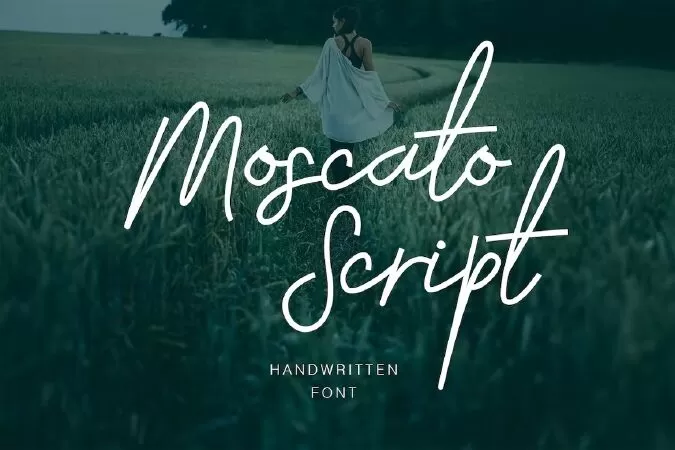
ntroducing Moscato - A dapper handwritten font with a personal touch. Moscato is perfect for many different project ex: quotes, blog header, poster, wedding, branding, logo, fashion, apparel, letter, invitation, stationery, etc.
Clarkson Script
Introducing Clarkson Script
Brand new stylish versatile fonts ! In collaborating with Albion Room. Fresh from the oven as inspired to create easy digital lettering for you. Characters included more than 550+, check the display no 3. Also comes with lots of alternate characters lowercase and uppercase, ligatures, setting up for easy use on the initial and terminal forms. It will be great for Logotypes, Posters, Digital Lettering Arts, Clean design, Branding Design, Sign, etc.
Features
- Contextual Alternates
- Stylistic Alternates (up to 10 style in some letters)
- Ligatures (including Th, st, tt)
- Initial & Terminal (easy use just adding the double hyphen (--) at the first or last.
- Refined All caps (No more tail or swash when type in all caps)
Pathout Script
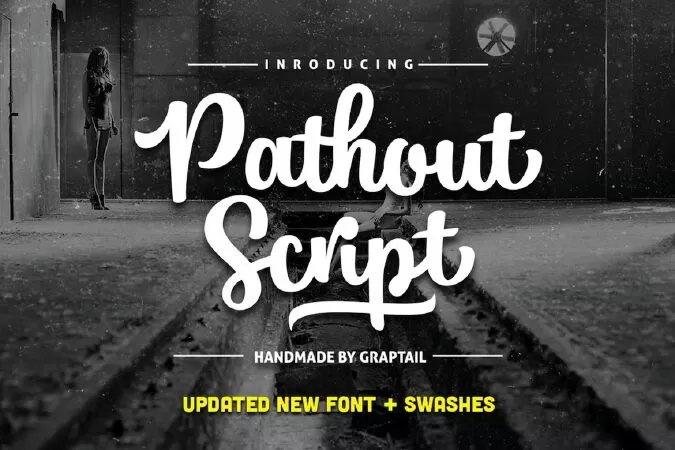
Pathout is a bold connected script font with a clear style and dramatic movement.
Pathout comes with uppercase, lowercase, numerals, punctuations and so many variations on each characters include opentype alternates, common ligatures and also additional swash to let you customise your designs. Perfect to use for Logotype, Letterhead, Poster, Apparel Design, Label and etc.
Bird House Script
Bird House Script is a handwritten font designed using markers.
This font perfect for branding, signature, and more.
It includes uppercase standard character, punctuation and multiple language support.
Harmonie Script
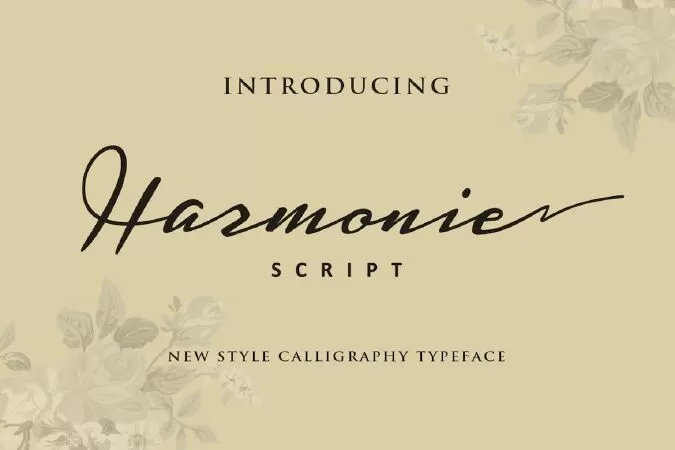
Introducing Harmonie Script
Harmonie Script is a new handwritten stylish copperplate calligraphy fonts, combines from copperplate to contemporary typeface, classic and elegant touch.
Harmonie Script is suitable for Apparel Brand, any greeting cards, Painting design style, or any design that needs natural and personal touch. Mix and match the alternate characters to add an attractive message to your design.
Features of Harmonie Script is;
- Standart ligatures
- Stylistic sets